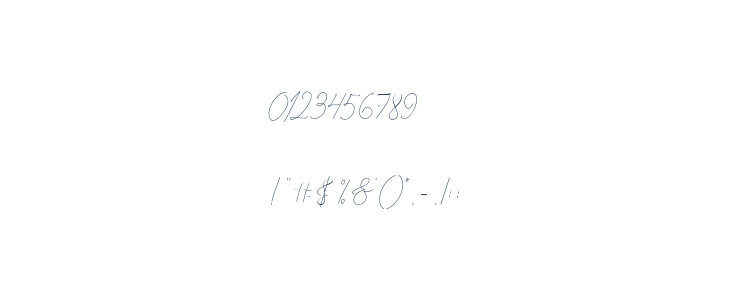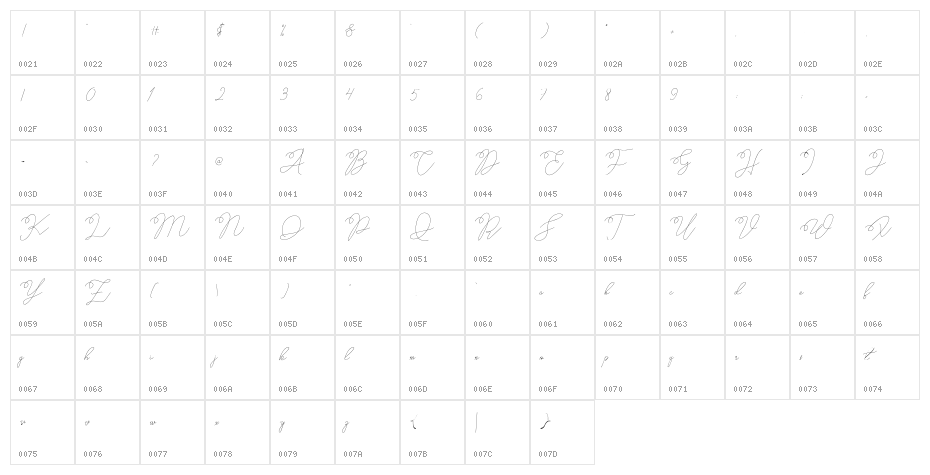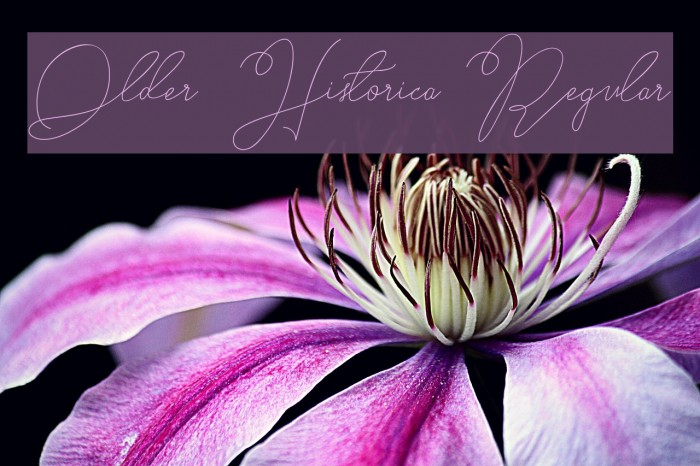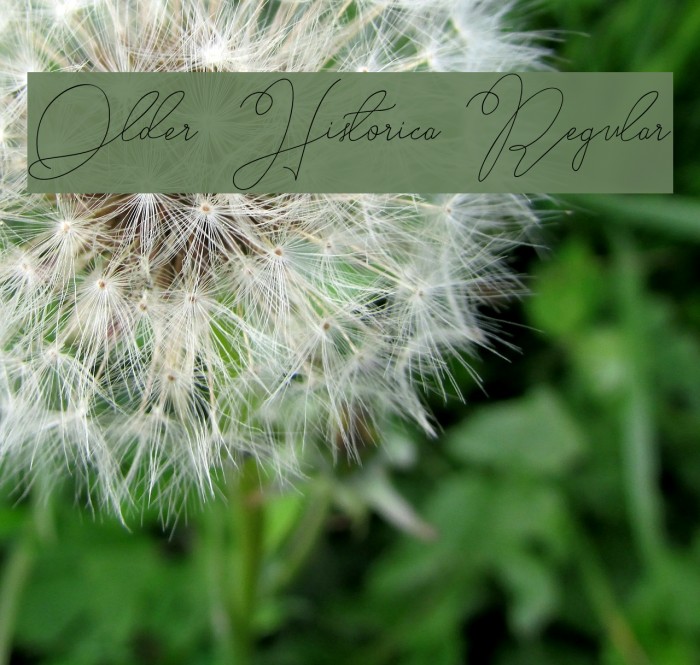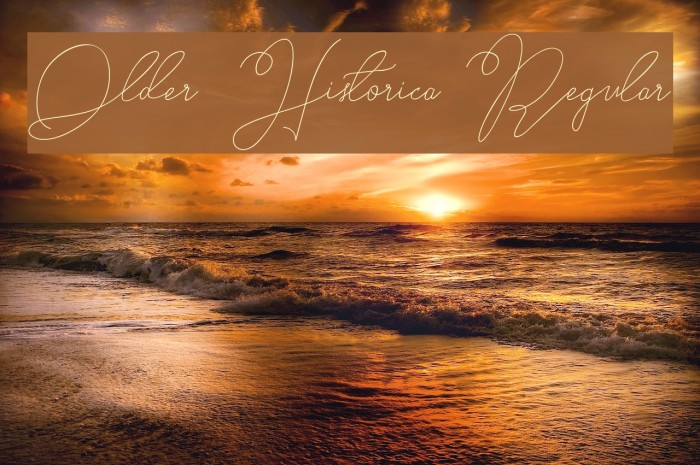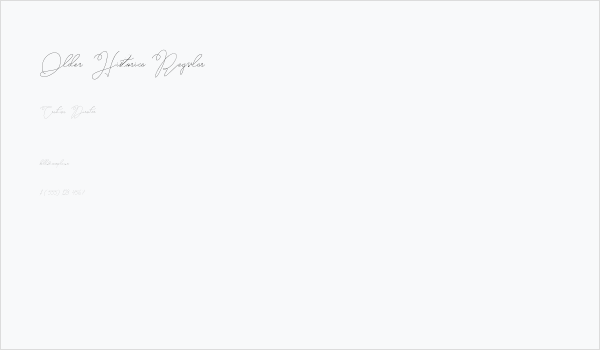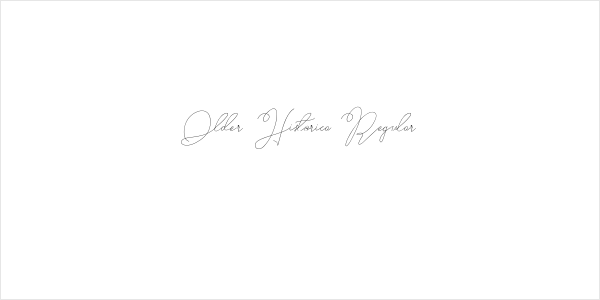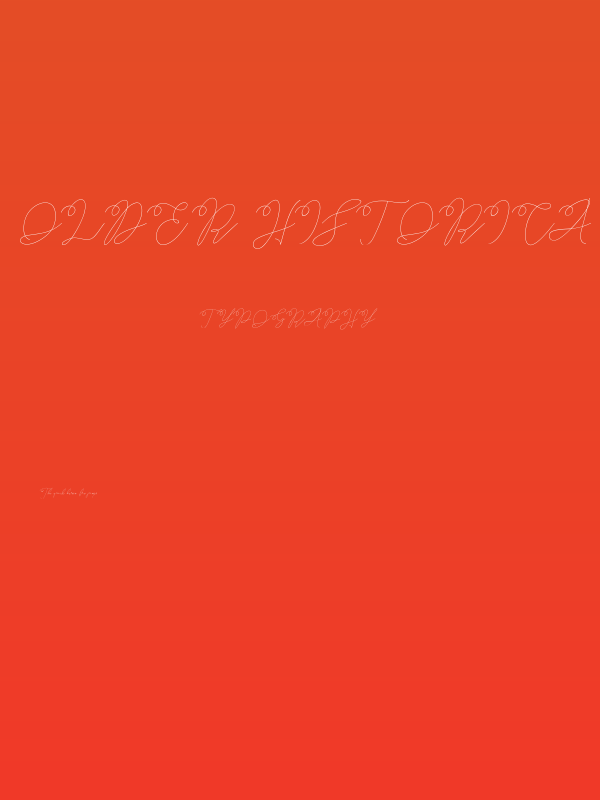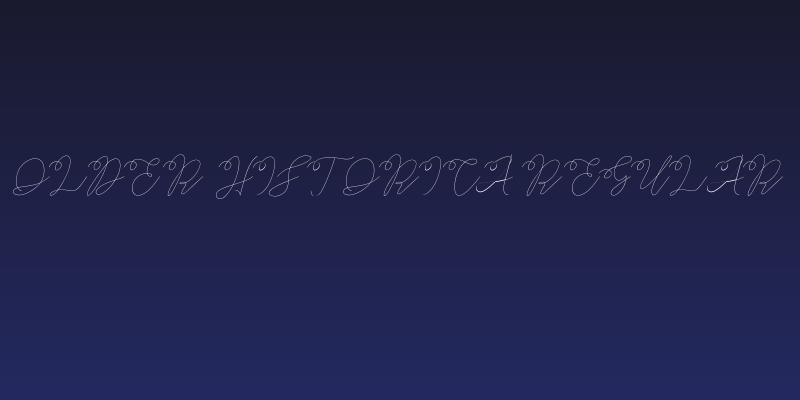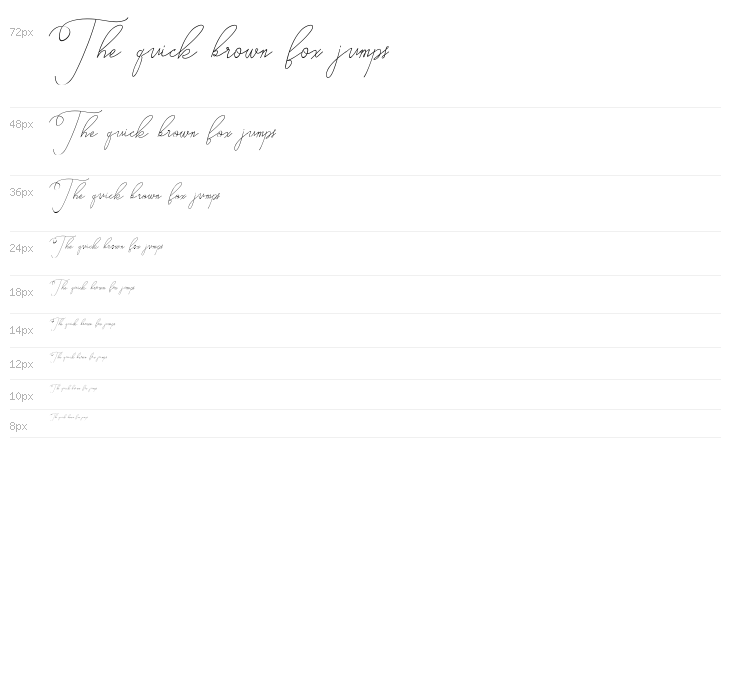
Older Historica Regular Font
Older Historica Regular Description
This elegant script font features a delicate and flowing design, reminiscent of classic calligraphy. The characters are interconnected with smooth, sweeping strokes that convey a sense of grace and sophistication. The uppercase letters are ornate, with intricate loops and curves, while the lowercase letters maintain a consistent fluidity. The numerals and special characters complement the overall style, maintaining the same graceful flow. This font is perfect for projects that require a touch of elegance and refinement.
| Proposed Projects | Ideal for wedding invitations, elegant branding, formal event programs, and upscale packaging design. |